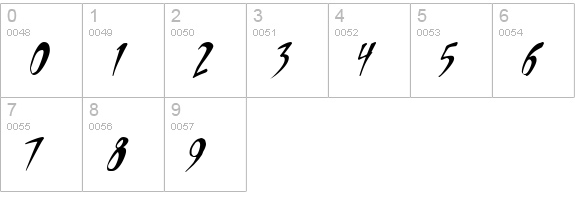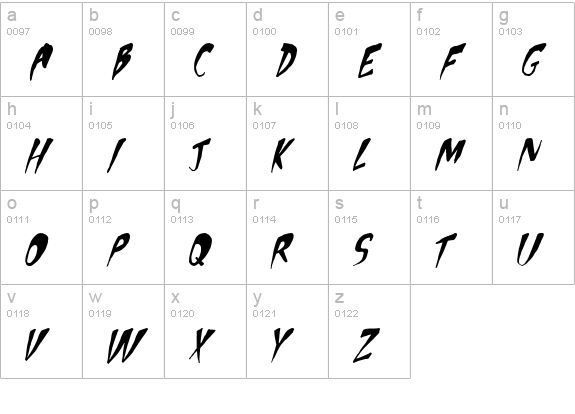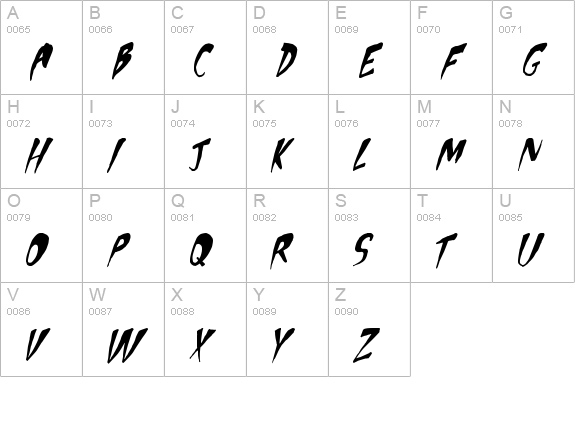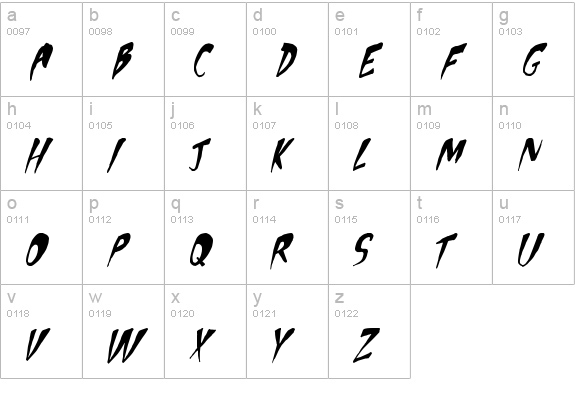
Apocalypse 1 Font Details
Apocalypse 1 font is a stunning display font that exudes a sense of mystery and drama. With its sharp, angular letterforms and intricate detailing, this font is perfect for creating eye-catching headlines, posters, and other design projects that demand attention. The futuristic and edgy aesthetic of Apocalypse 1 font makes it ideal for projects that require a touch of the unconventional and avant-garde. What makes Apocalypse 1 font even more appealing is that it is available for free download at FontsMarket.com. This means that you can access this unique and captivating font without any cost, making it a valuable addition to your font library. Don't miss out on the opportunity to enhance your designs with the striking and bold style of Apocalypse 1 font, available for free at FontsMarket.com.